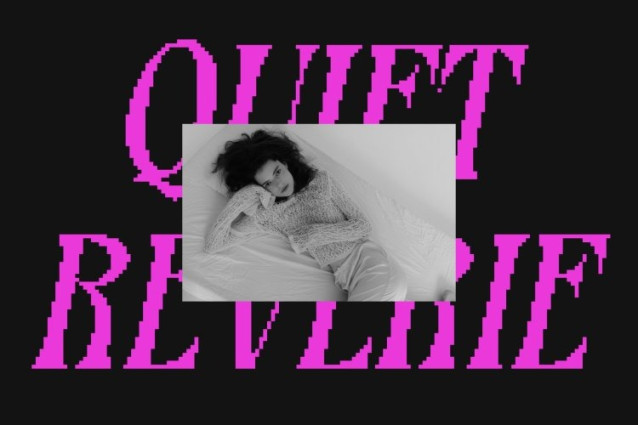
Redika Pixel Font
Redika Pixel Font This is a nostalgic retro font that brings the charm of classic design into the digital age. Its beautifully crafted shapes and playful energy evoke the styles of the past while maintaining a contemporary appeal. Ideal for designers aiming to combine vintage aesthetics with modern applications, this font adds character and personality to every project.
Quirky Energy and Beautiful Shapes for Visual Impact
The font’s distinctive forms and whimsical energy make it both memorable and versatile. Each letter is carefully designed to capture retro charm, delivering a friendly, engaging, and creative impression. this font is perfect for branding, posters, editorial layouts, and retro-inspired campaigns that require a lively, eye-catching touch.
Pixel Style for a Modern Digital Edge
Enhanced with a pixel texture, this font transforms its retro-inspired forms into a modern, digital-ready typeface. The pixel effect adds contemporary flair, making the font suitable for digital branding, web design, and creative projects that blend nostalgia with current design trends.
Perfect for Branding, Posters, and Retro-Inspired Campaigns
This font excels across applications where personality, creativity, and digital flair are key. From branding and promotional materials to posters and digital campaigns, its blend of retro charm and pixel-enhanced design delivers a unique, stylish, and visually engaging presence.